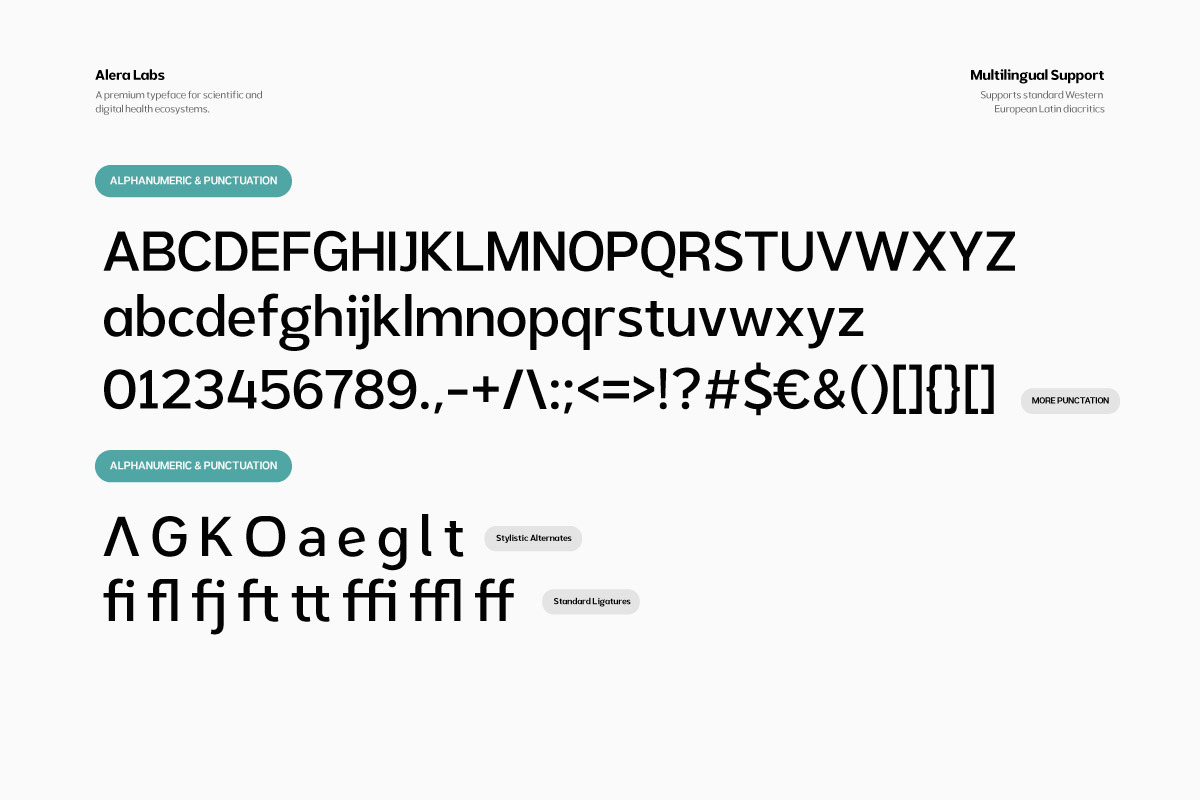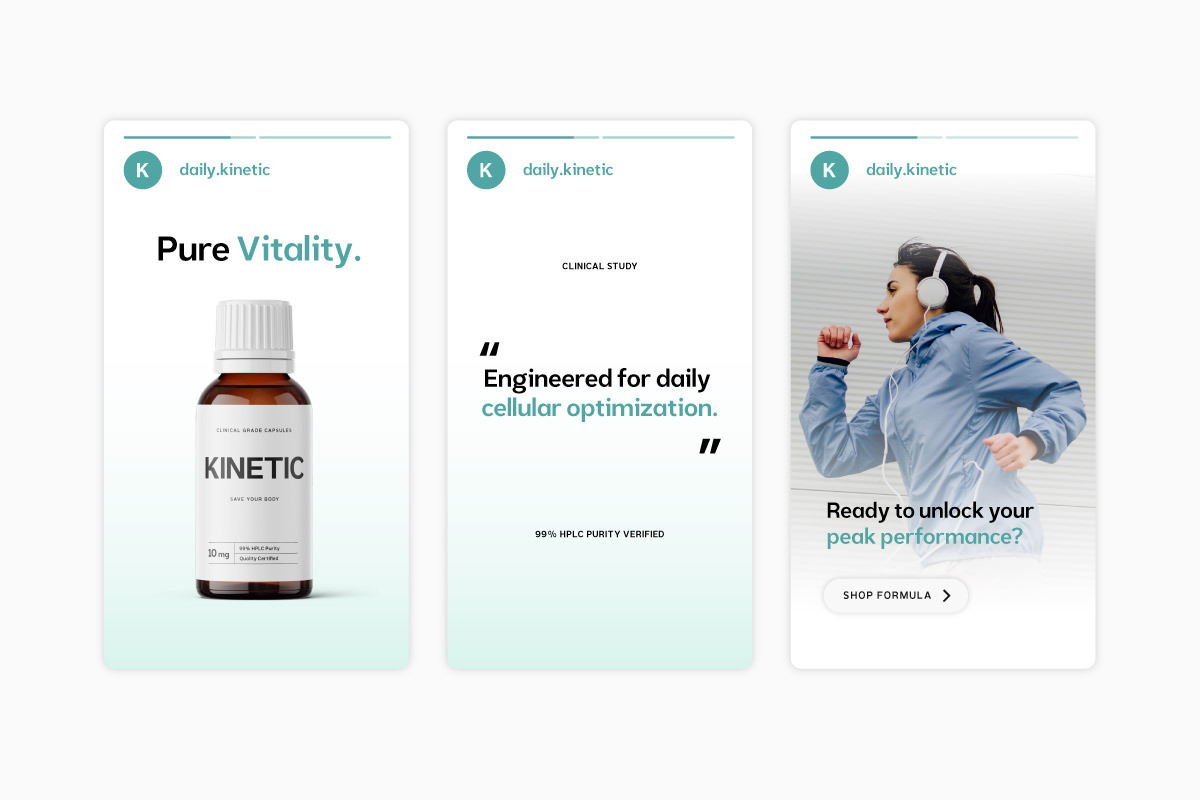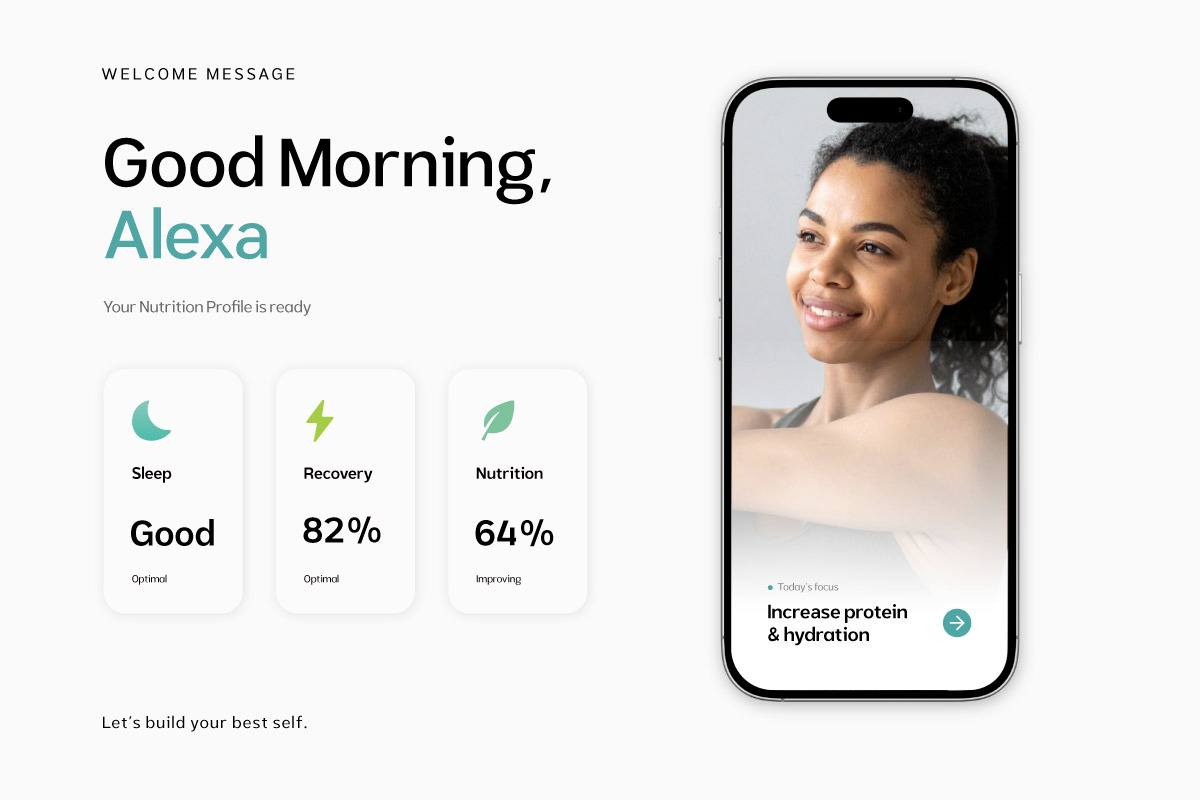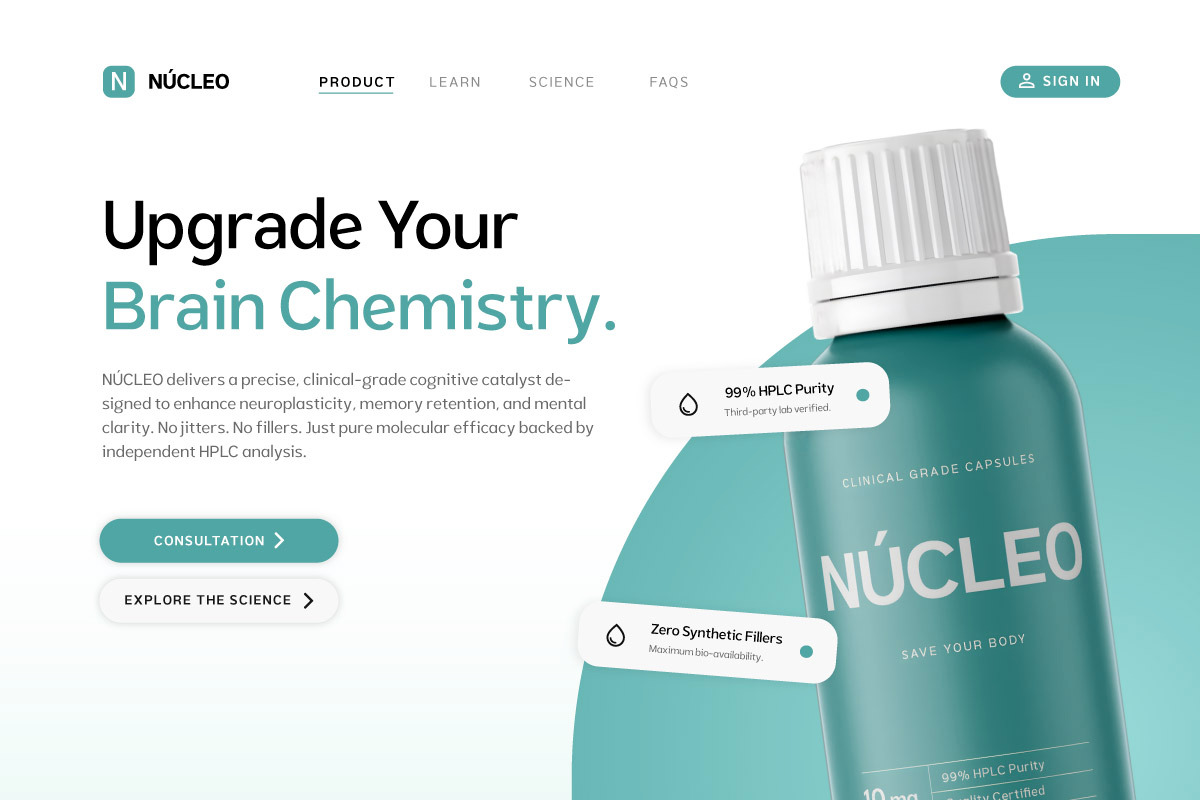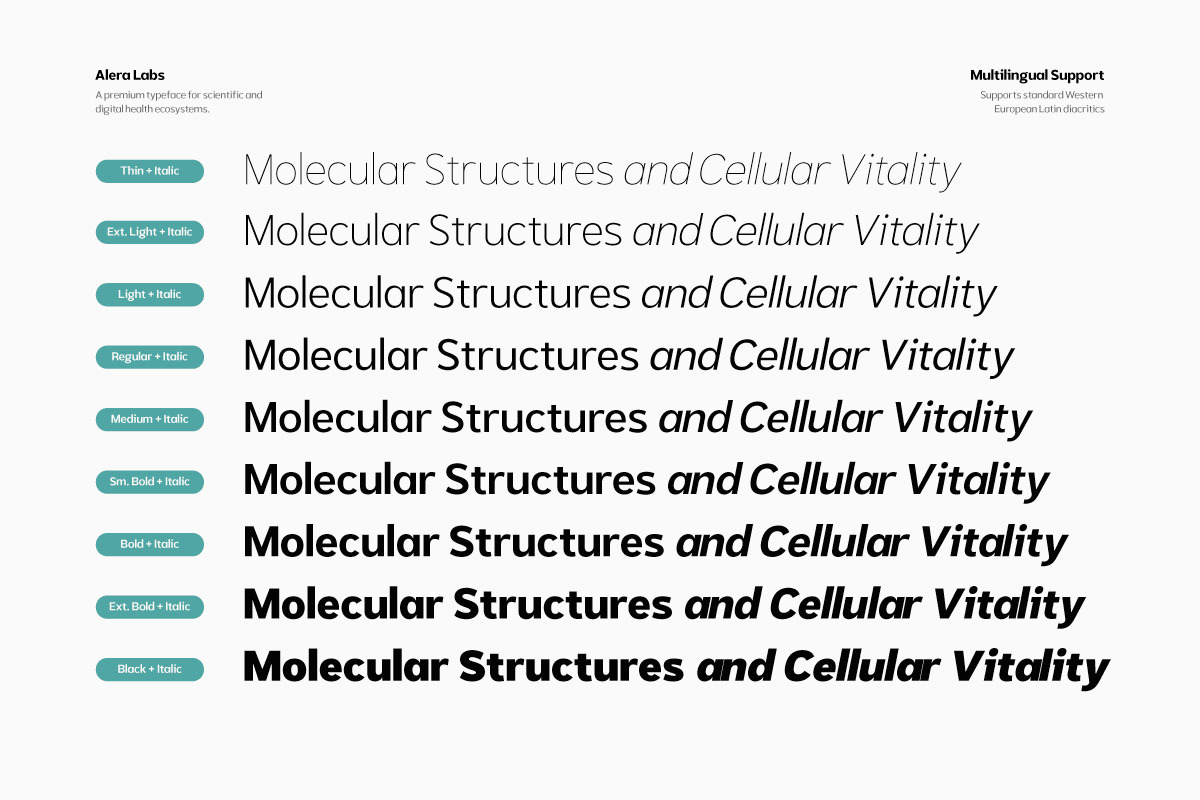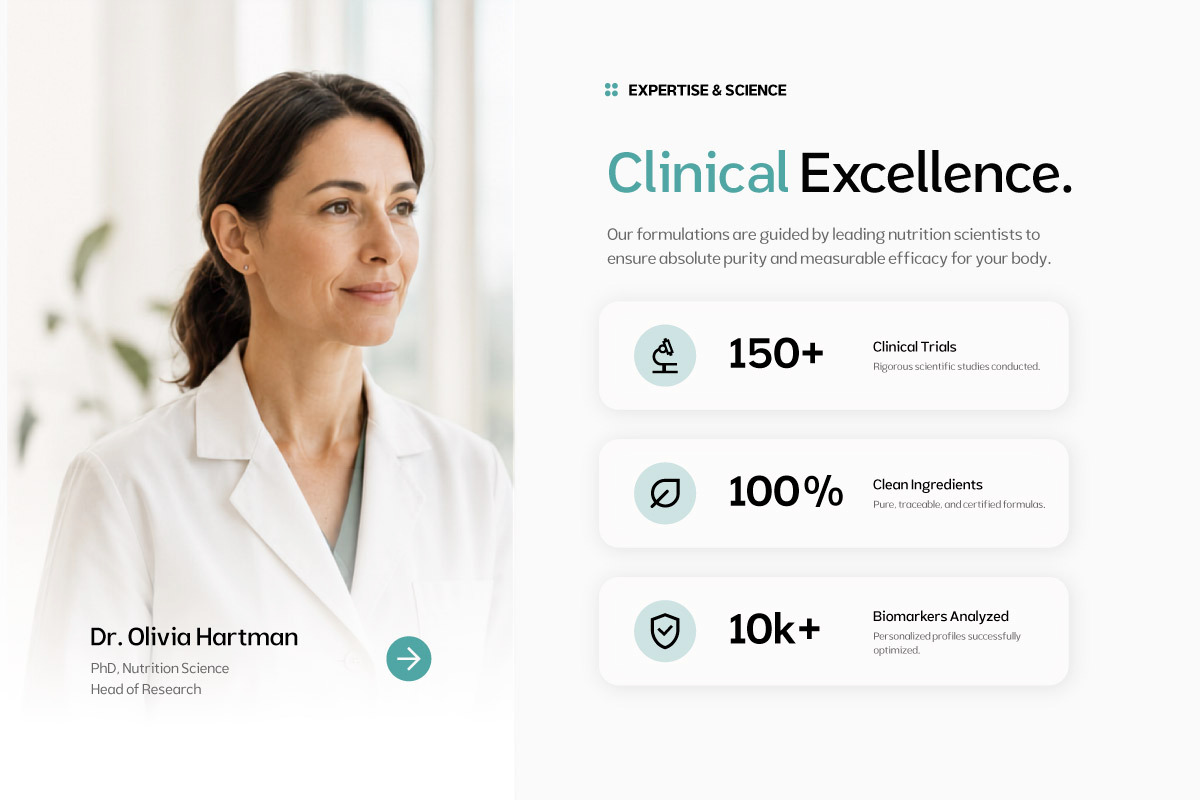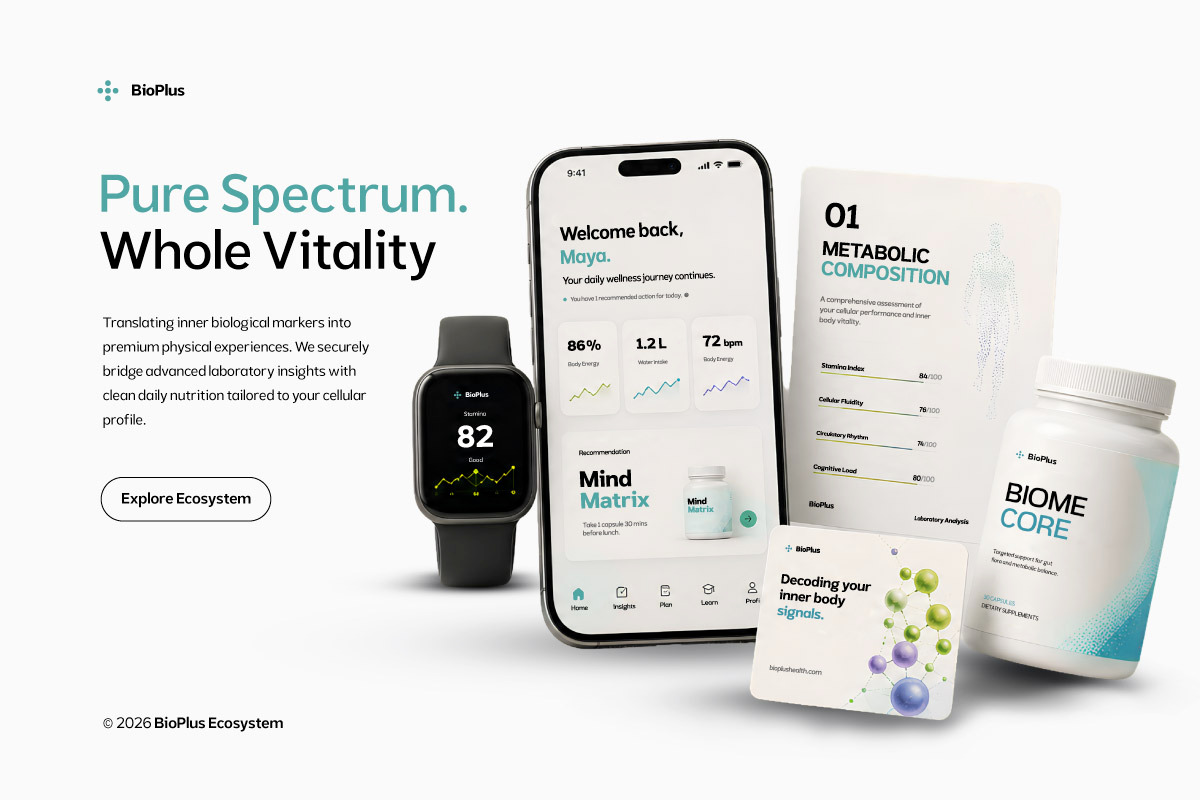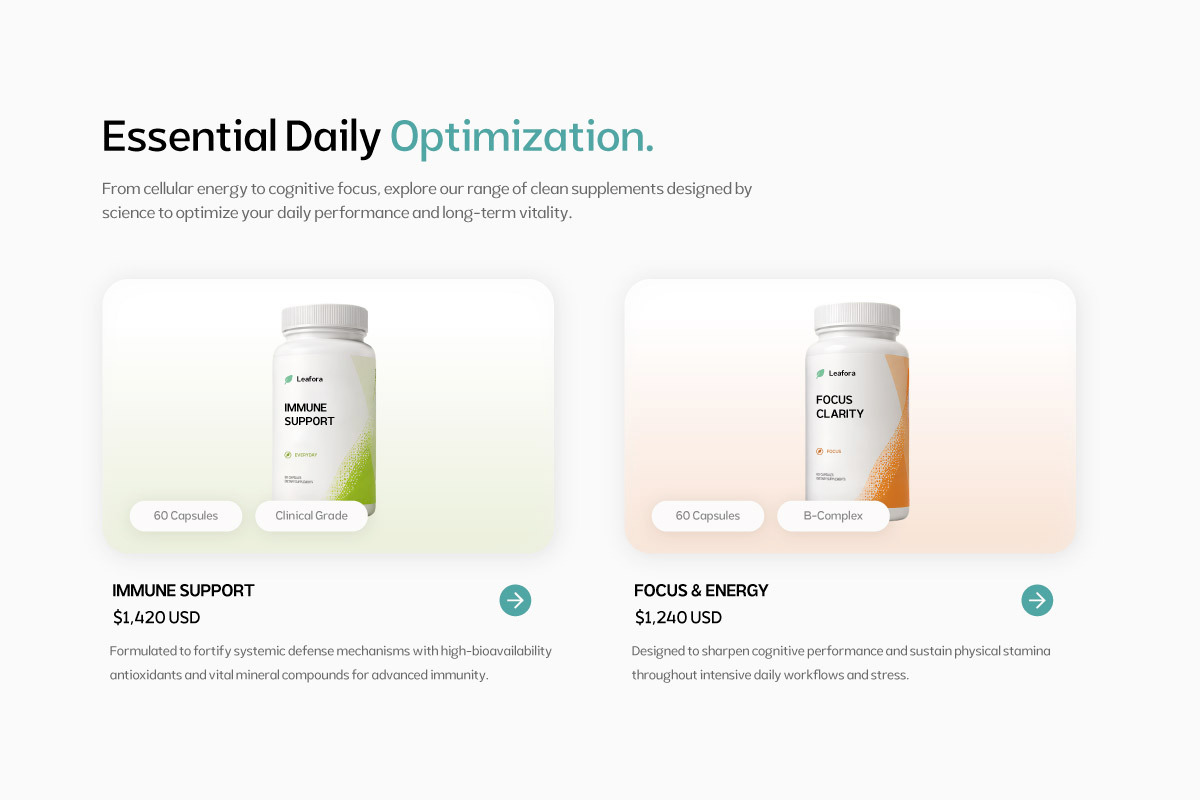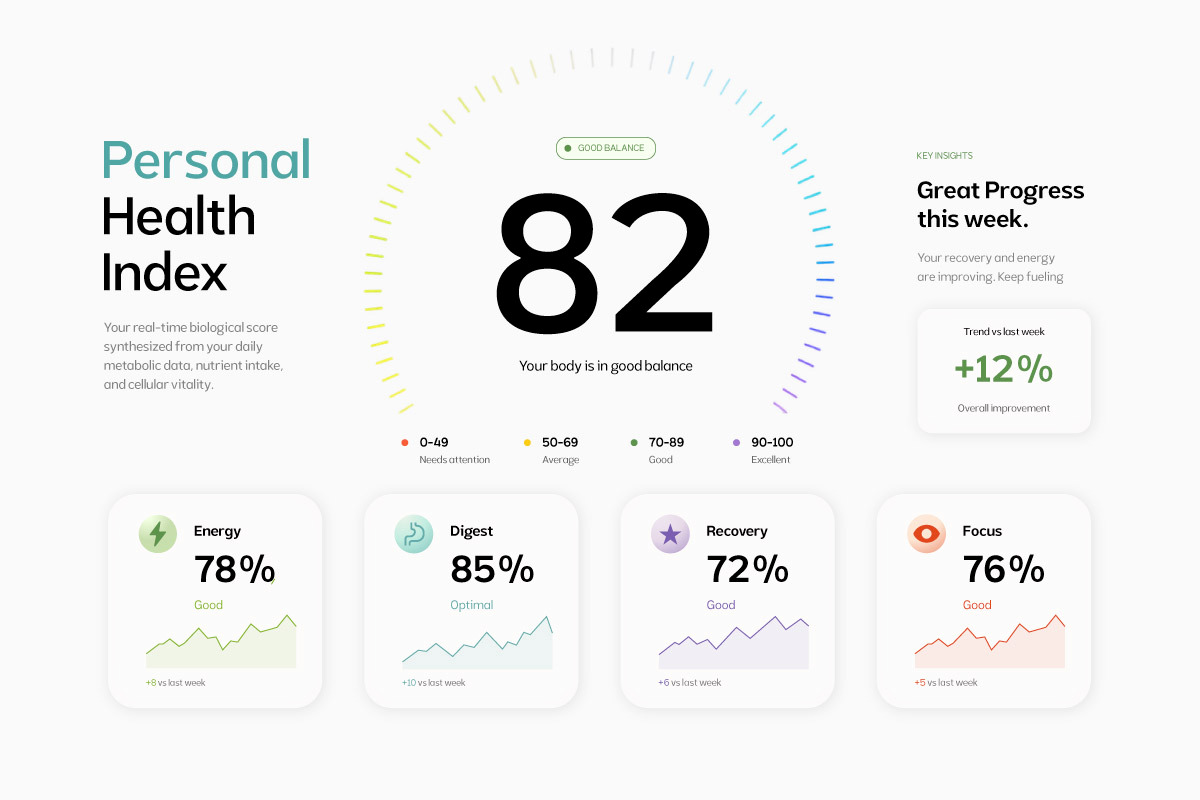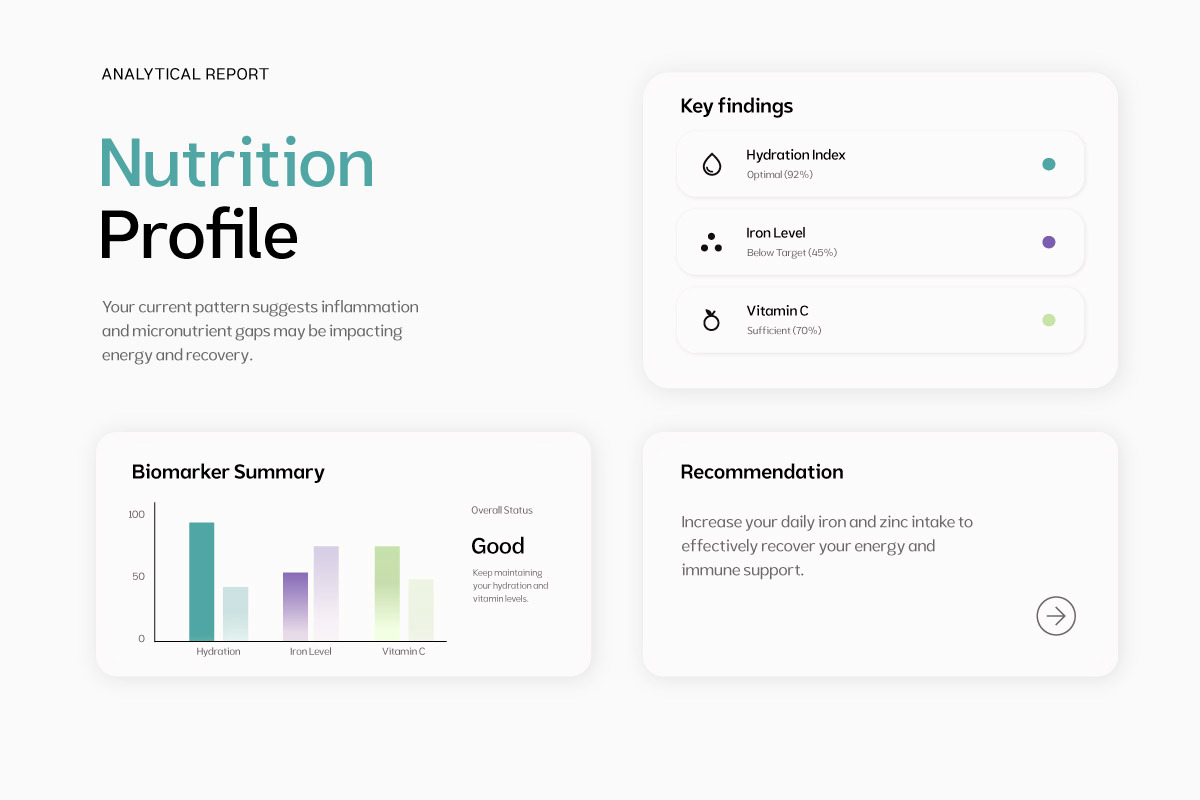
Alera Labs - Scientific Humanistic
Alera Labs – Scientific Humanist is a modern humanist sans serif font designed to create a clean, scientific, trustworthy, and professional visual presence. Its refined letterforms offer excellent readability while adding a sophisticated character to health, nutrition, technology, and science-focused brands.
This typeface is ideal for bio-personalized nutrition, health technology, scientific supplements, wellness platforms, and daily health tracker apps. Alera Labs works beautifully for logos, brand identity, websites, mobile apps, packaging, editorial design, presentations, and marketing campaigns that require a modern and credible aesthetic.
A strong choice for startups, health companies, nutrition brands, scientific products, and creative agencies looking to build an intelligent, sophisticated, and future-focused visual identity.
- Multilingual Support: Fully supports 85+ languages, including:
Afrikaans, Albanian, Asu, Basque, Bemba, Bena, Breton, Catalan, Chiga, Cornish, Croatian, Czech, Danish, Dutch, Embu, English, Esperanto, Estonian, Filipino, Finnish, French, Friulian, Galician, Gusii, Hungarian, Indonesian, Irish, Italian, Kabuverdianu, Kalenjin, Kamba, Kikuyu, Kinyarwanda, Latvian, Lithuanian, Lower Sorbian, Luo, Luxembourgish, Luyia, Machame, Makhuwa-Meetto, Makonde, Malagasy, Maltese, Manx, Meru, Morisyen, North Ndebele, Norwegian Bokmål, Norwegian Nynorsk, Nyankole, Oromo, Polish, Portuguese, Quechua, Romanian, Romansh, Rombo, Rundi, Rwa, Samburu, Sango, Sangu, Scottish Gaelic, Sena, Serbian, Shambala, Shona, Slovak, Slovenian, Soga, Somali, Spanish, Swahili, Swedish, Swiss German, Taita, Teso, Turkish, Upper Sorbian, Uzbek (Latin), Volapük, Vunjo, Walser, Zulu.